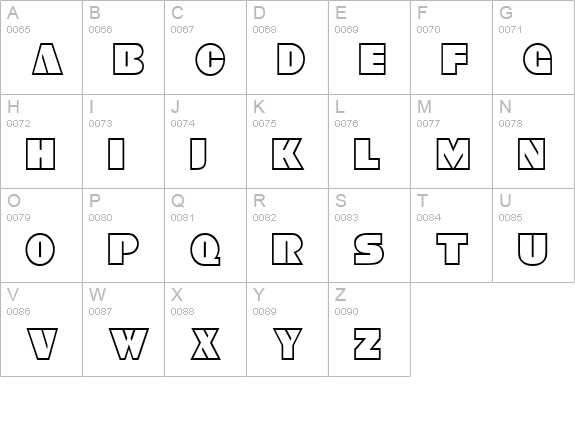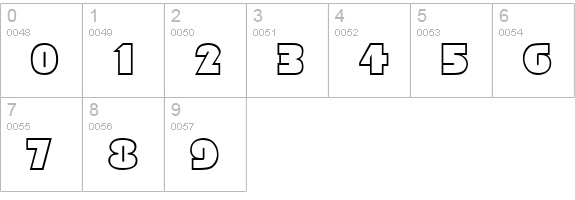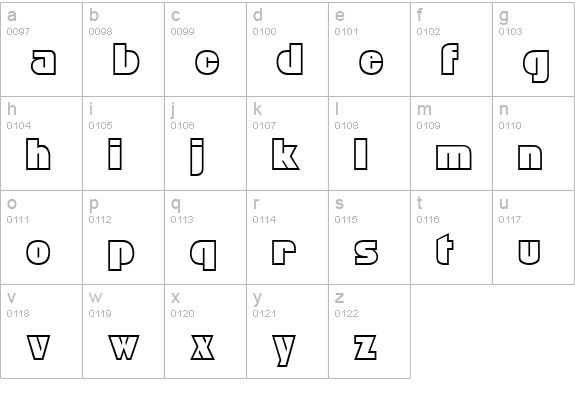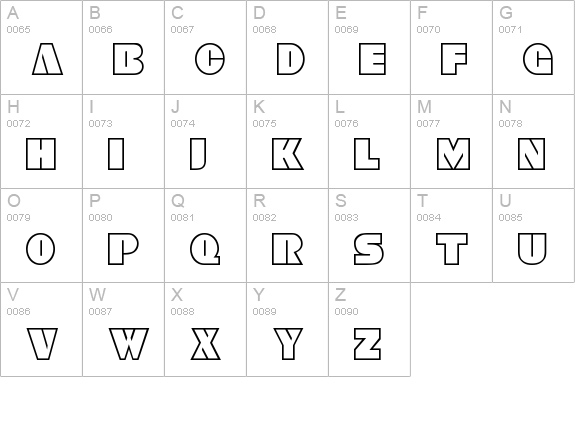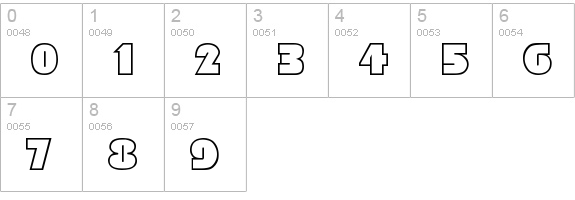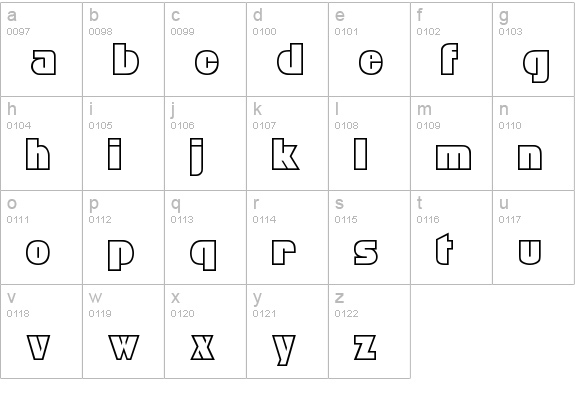
Kena Open Face Display SSi Font Details
Introducing Kena Open Face Display SSi, a captivating font that effortlessly combines elegance with a touch of playfulness. This versatile typeface is the perfect choice for a wide range of creative projects, from eye-catching headlines to striking logos and everything in between. Kena Open Face Display SSi boasts a unique blend of bold lines and intricate details, making it a true standout in any design. With its clean and legible letterforms, this font guarantees maximum readability without compromising on style. Whether you're designing a poster, a website, or a branding project, Kena Open Face Display SSi will ensure your message is conveyed with utmost clarity and sophistication. One of the most remarkable features of Kena Open Face Display SSi is its versatility. This font effortlessly adapts to both modern and vintage-themed designs, seamlessly blending into any creative vision you have in mind. Its timeless appeal and timeless charm make it a valuable asset for any designer or typographer. And the best part? Kena Open Face Display SSi is free to download at FontsMarket.com! Yes, you read that right. You can now access this exceptional font without spending a dime. FontsMarket.com provides a platform where creativity meets accessibility, offering a vast collection of high-quality fonts for everyone to enjoy. So why wait? Take your designs to the next level with the captivating charm of Kena Open Face Display SSi. Download it freely at FontsMarket.com and unlock a world of endless possibilities for your next creative endeavor.